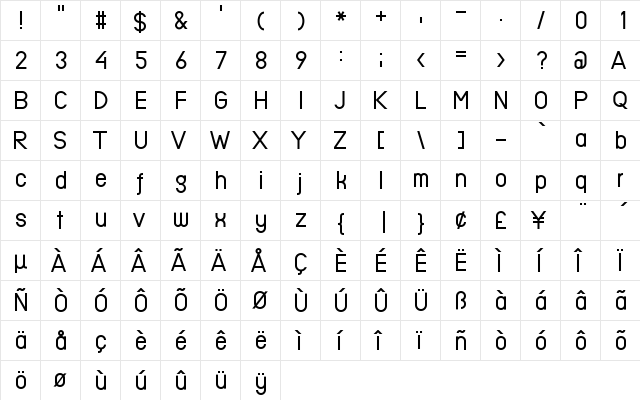
EPF UUL Font Preview
EPF UUL
EPF UUL Font Details
| Style | UUL |
| Foundry | YOFonts |
| Designer | Yamaoka Yasuhiro |
Design Context for EPF Typeface
EPF offers clean, dependable letterforms without strong stylistic allegiance, making it a practical choice for designers who need flexibility.